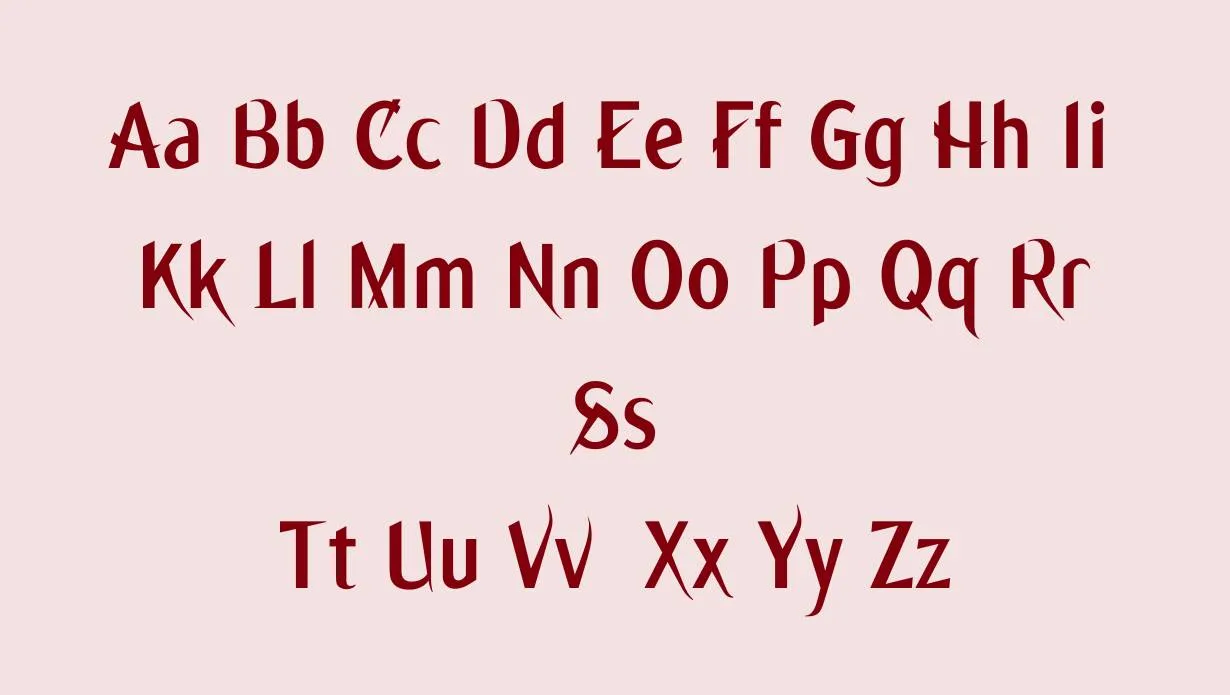
Art Deco Font is a unique and decorative typeface. This stunning typeface belongs to the retro font family. It was created by a renowned typographer named Nick Curtis. This typeface is available in Open-type and True-type formats suitable for all types of systems.
The highly readable characters of this typeface are perfect for both print and digital projects. you can use this fascinating typeface for prominent headlines, titles, and subheadings.
View of Art Deco Font
| Designer | Nick Curtis |
| Style | Retro |